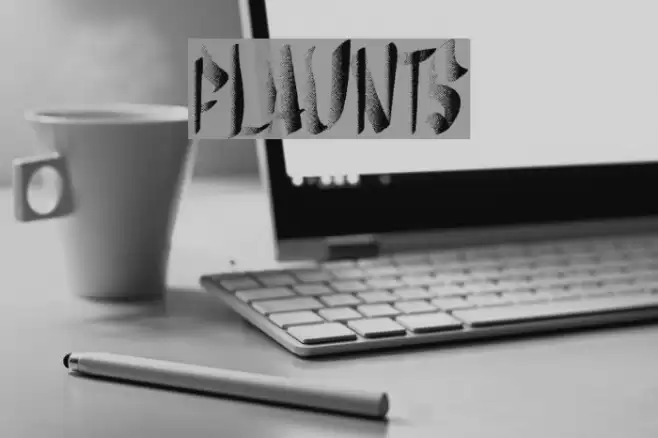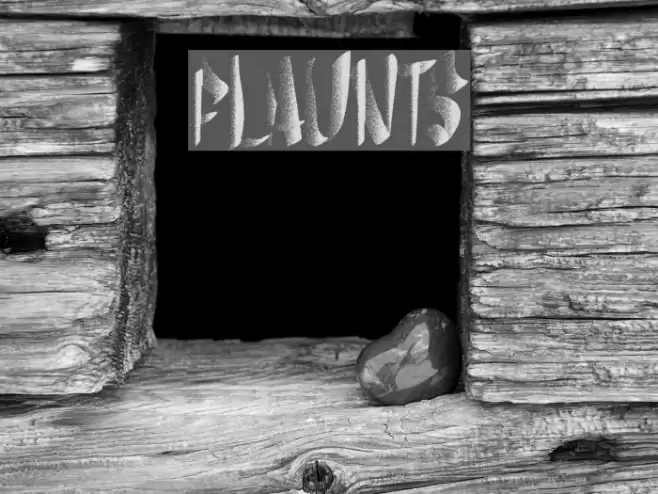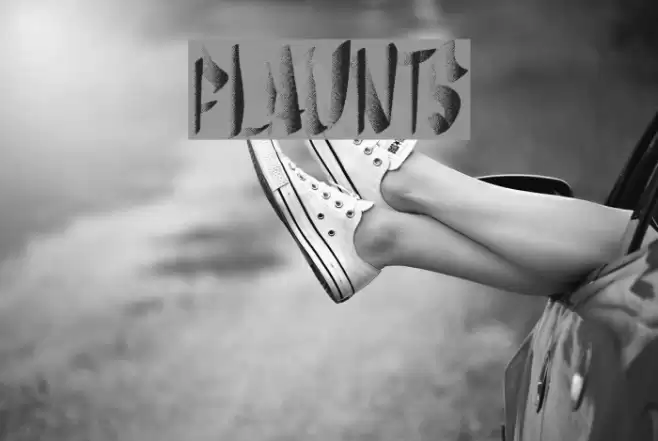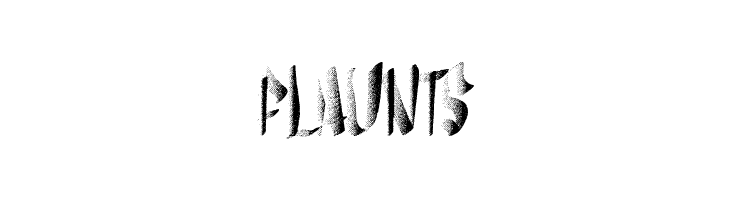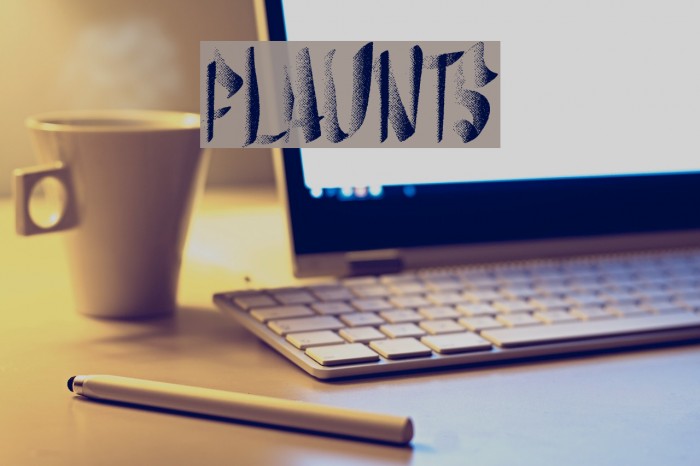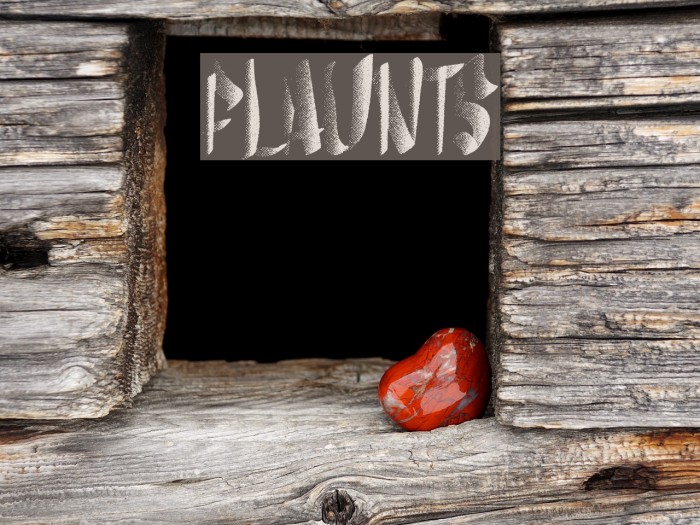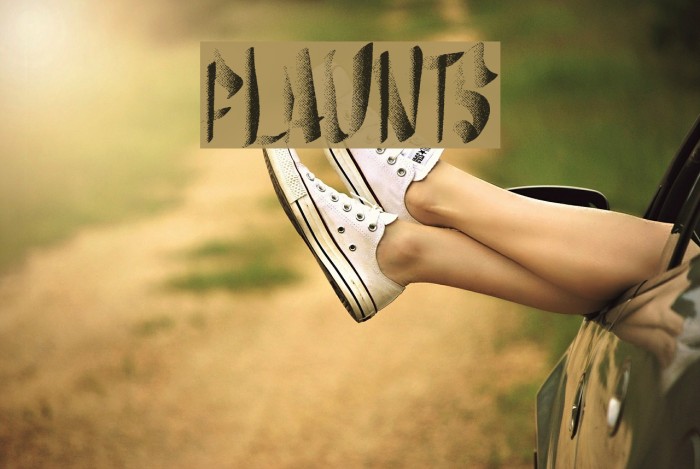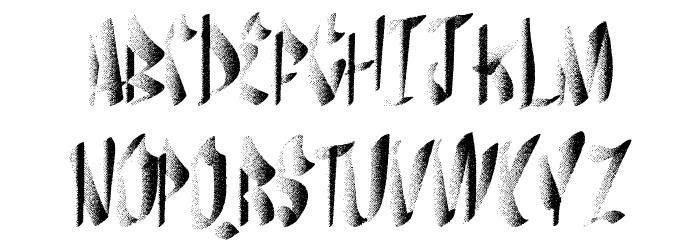
flaunts Font
flaunts Description
This font features a unique, decorative style with a dynamic, flowing appearance. The letters are crafted with a sense of movement, as if they are caught in a breeze, creating a sense of depth and texture. The design incorporates a stippled effect, adding a layer of complexity and visual interest. Each character is distinct, with sharp angles and curves that give it a modern and artistic flair. The overall impression is bold and eye-catching, making it suitable for creative and expressive projects.
A dynamic, decorative font with a stippled, flowing design from Uncategorized fonts.
- Proposed Projects: Ideal for artistic posters, album covers, branding for creative industries, and any project requiring a bold, artistic statement.
- Overall Style: Modern, Artistic
- Use Case: Headlines, Logos, Artistic Projects